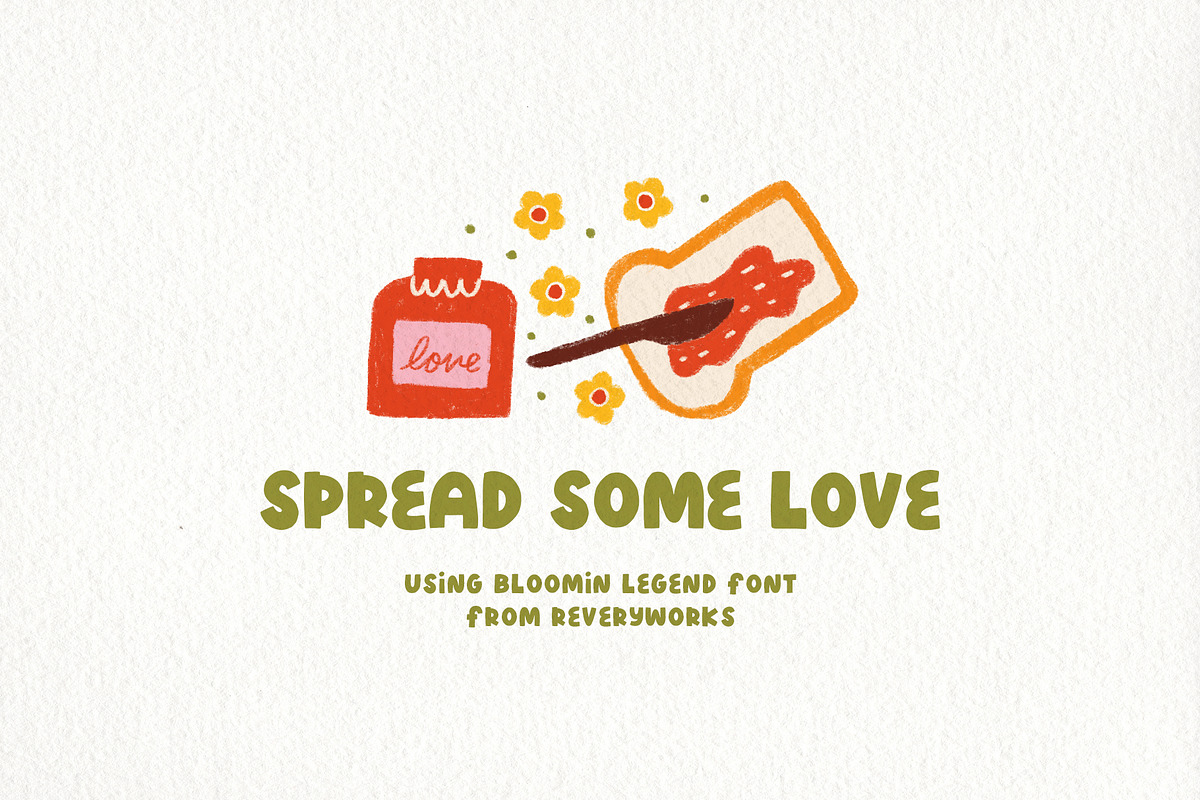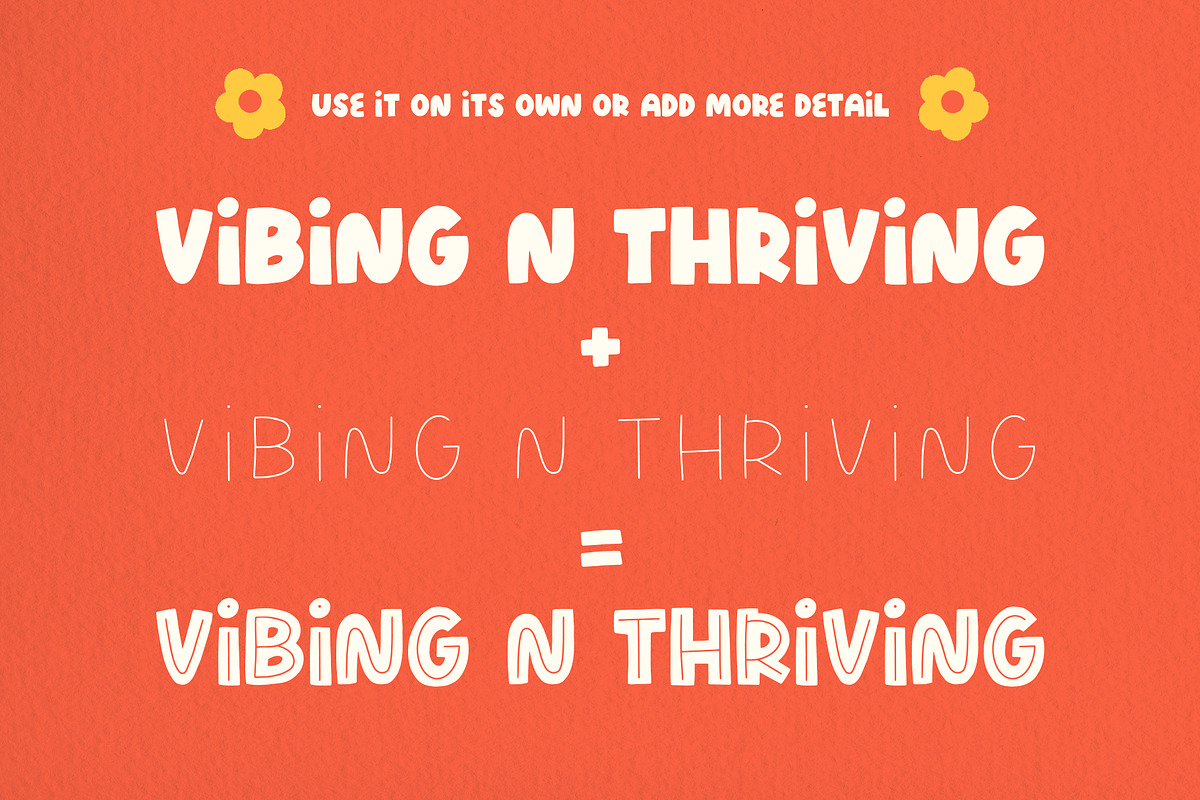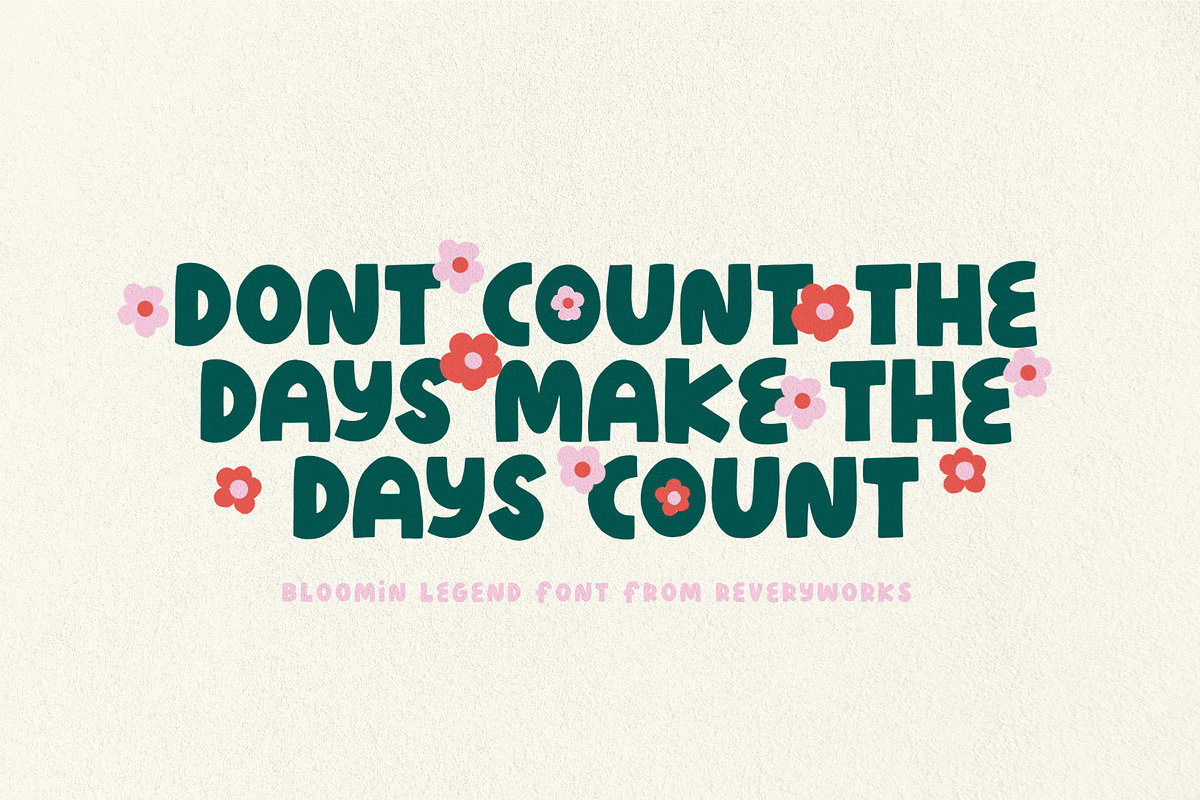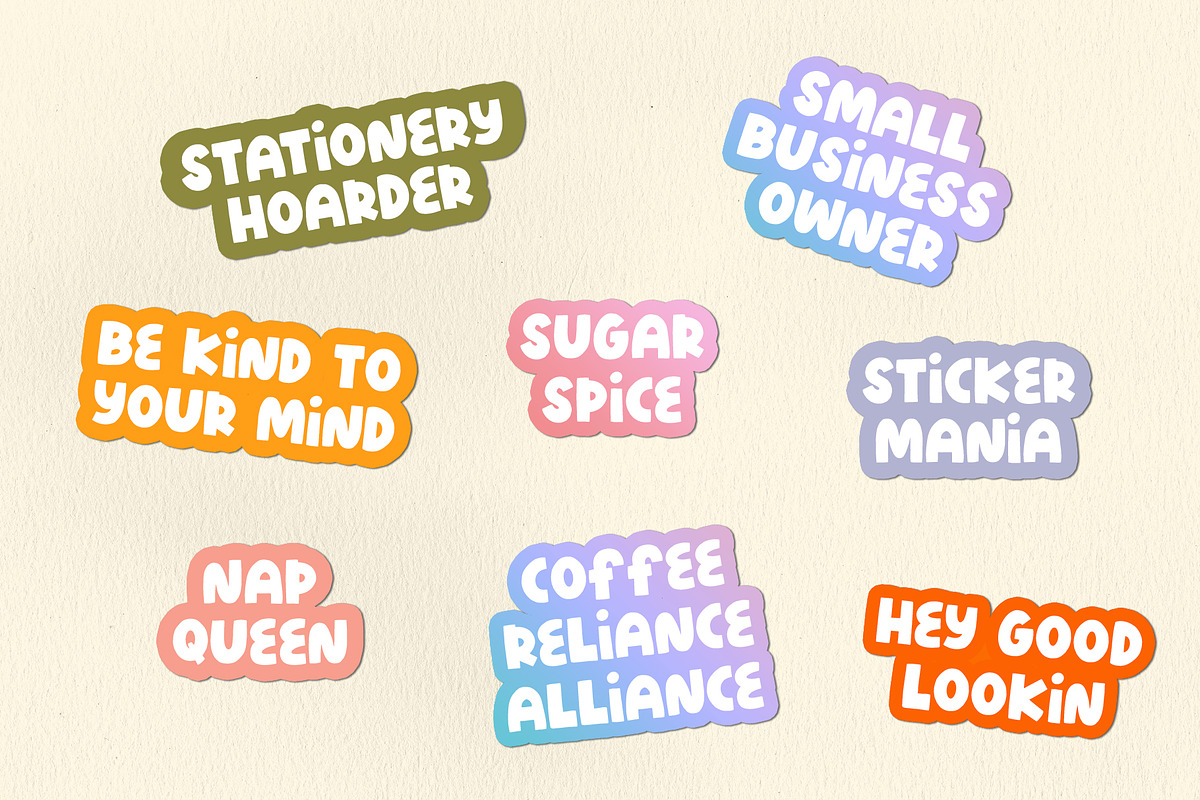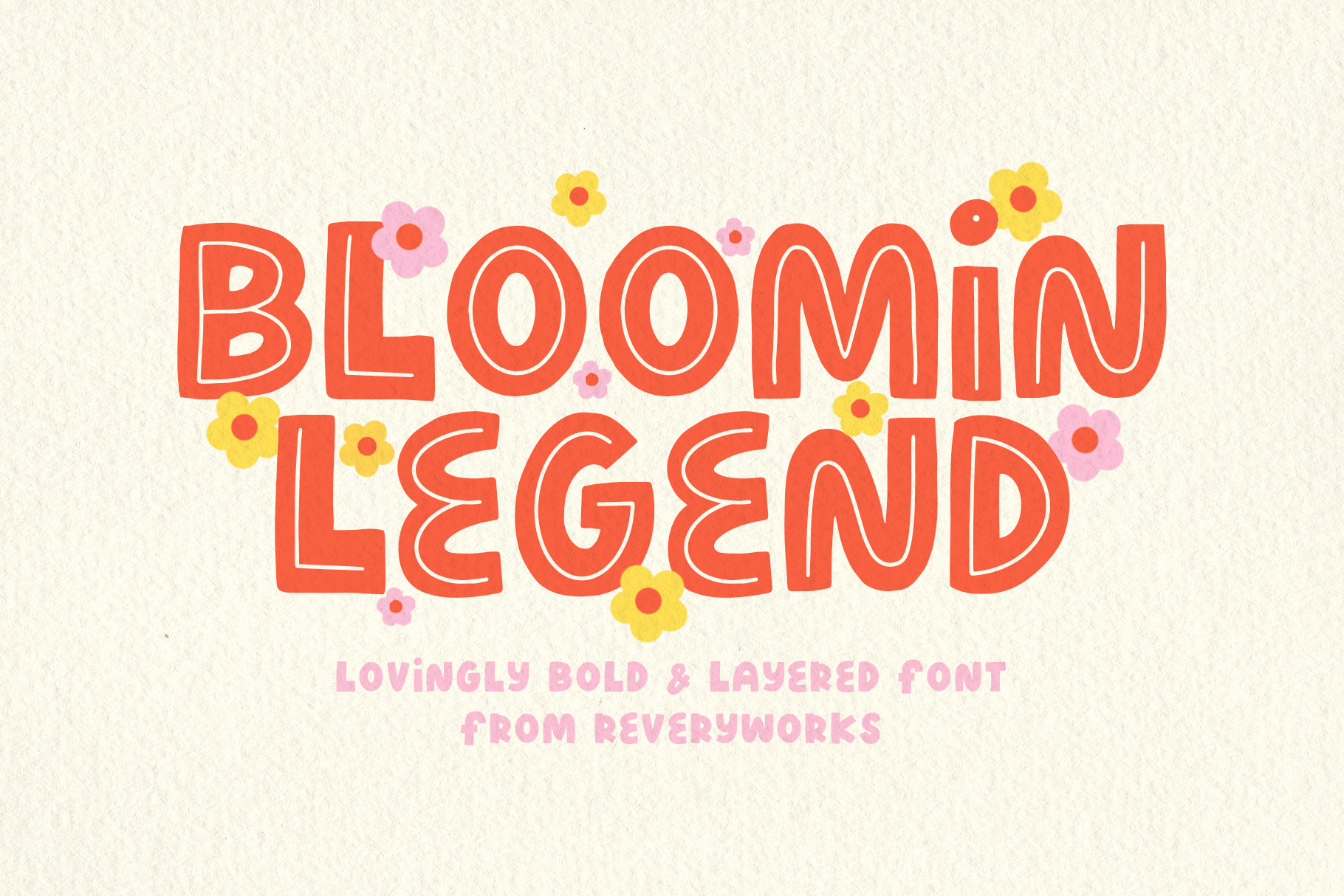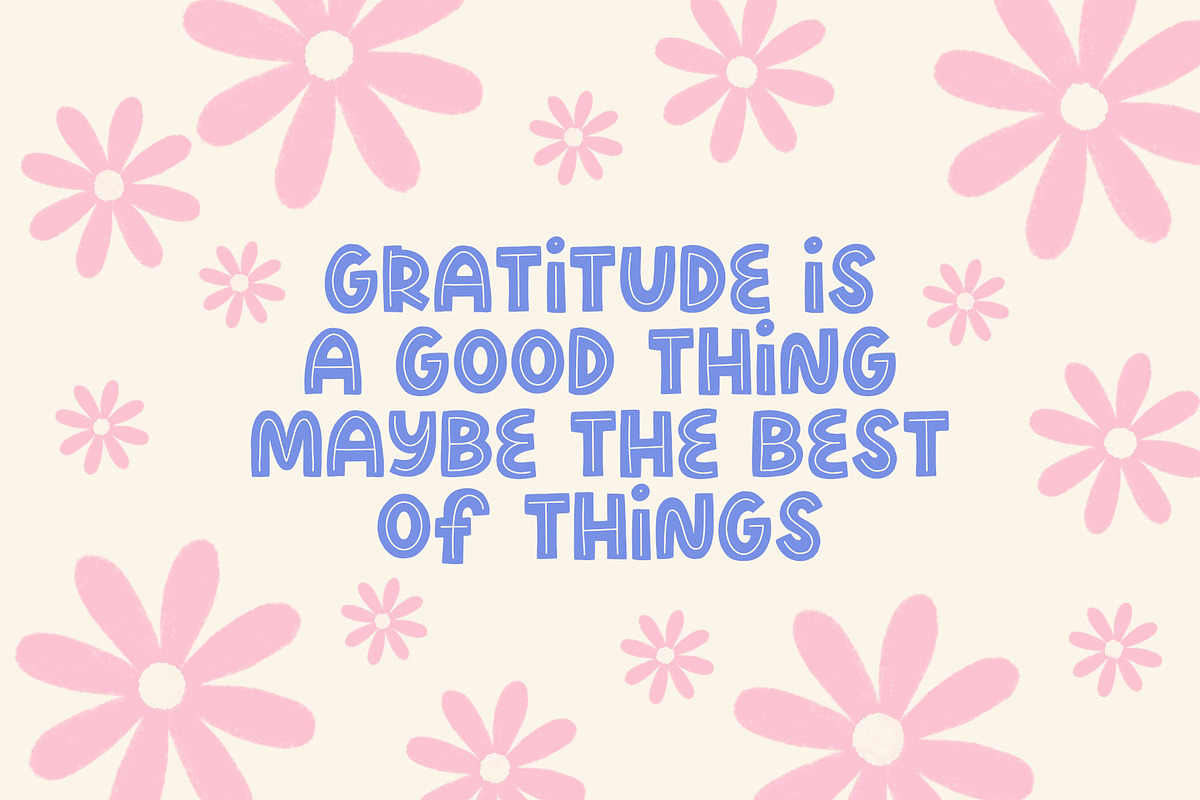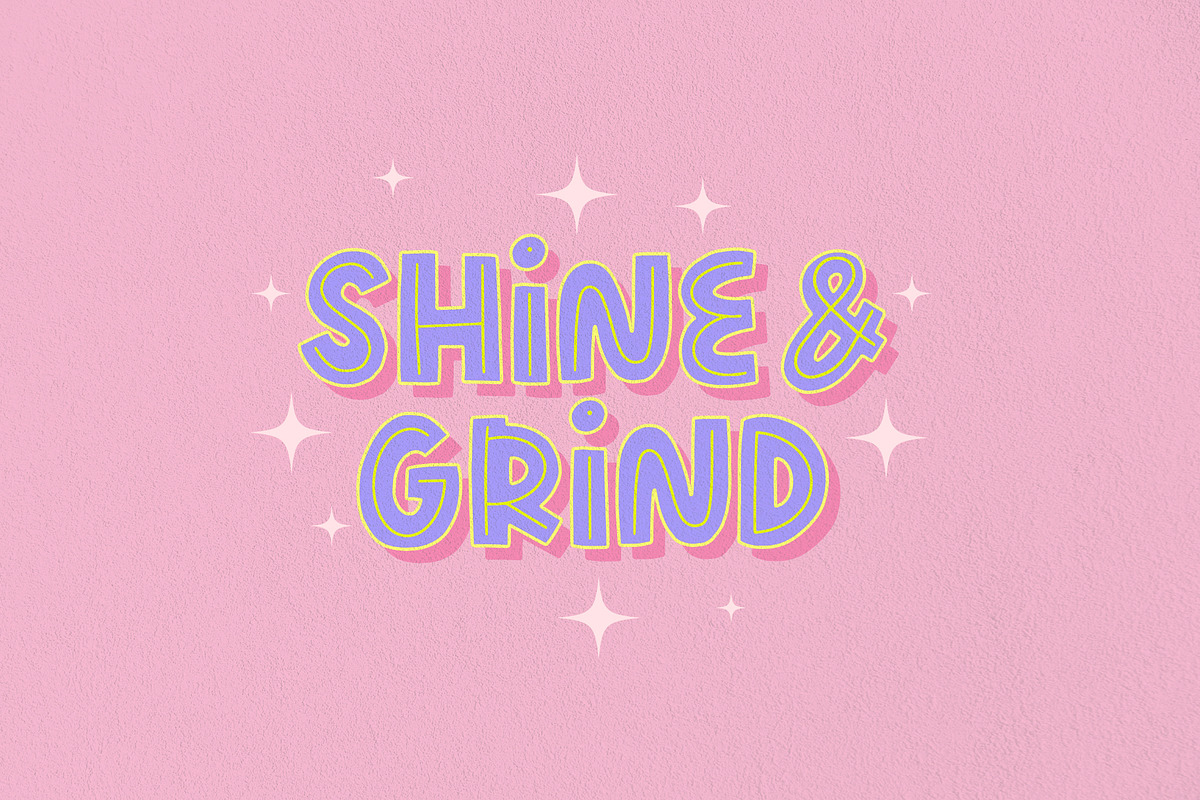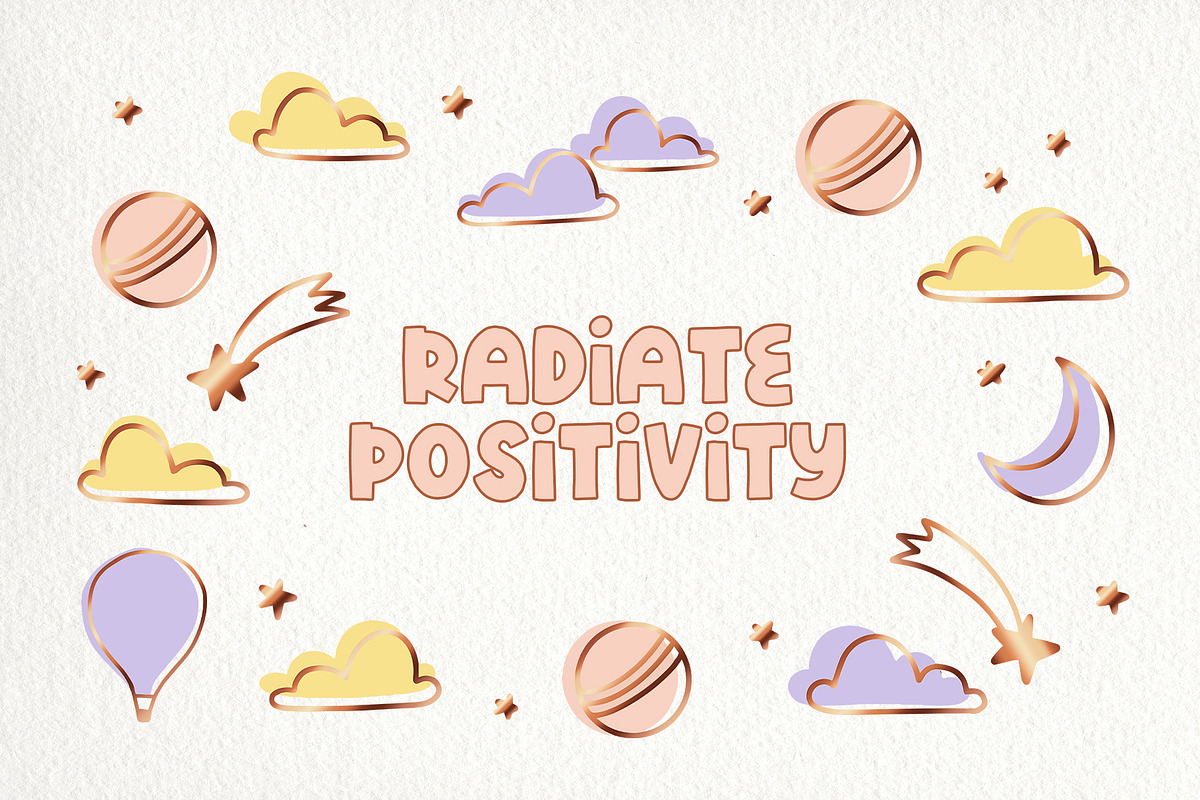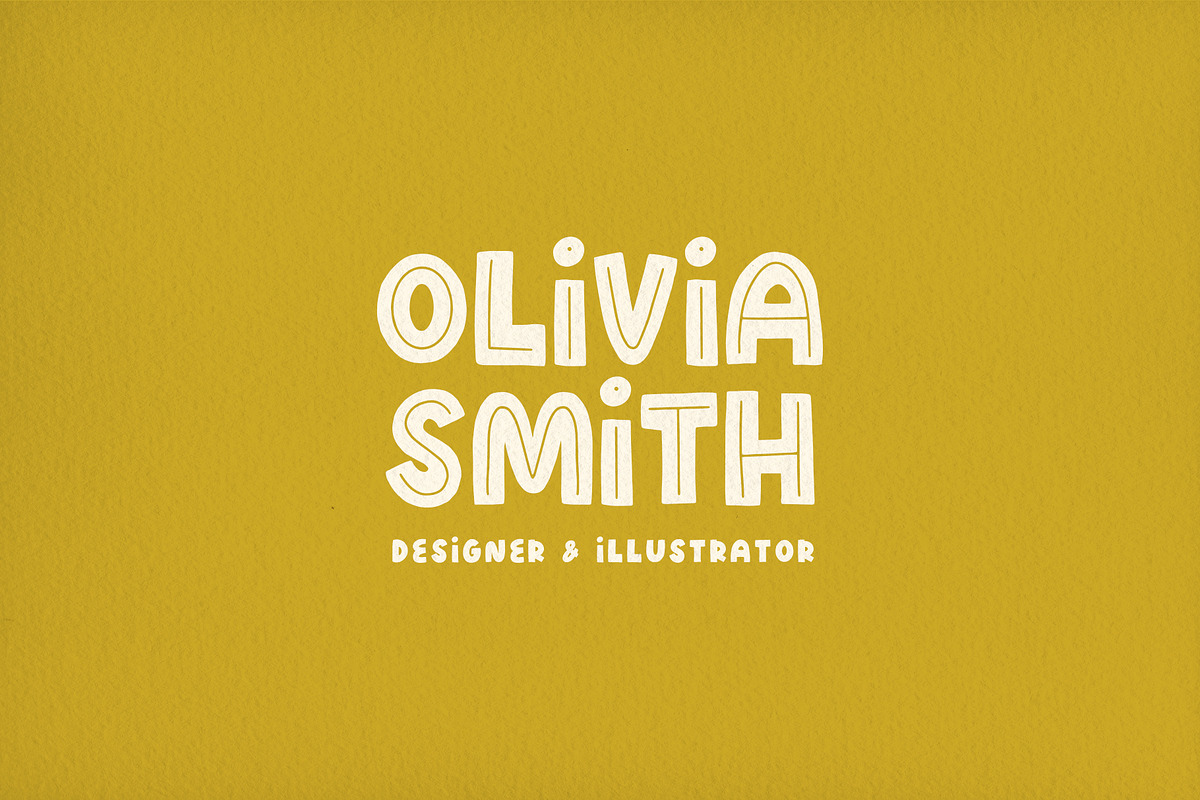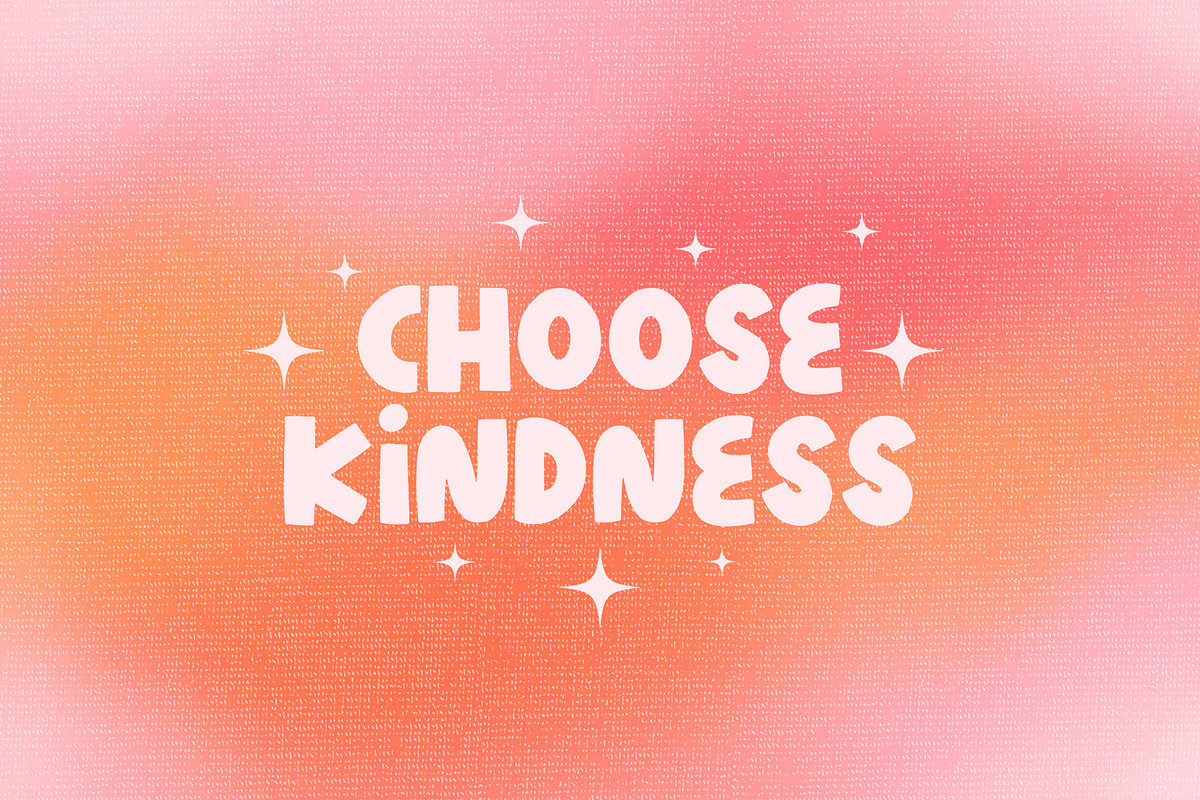
Blooming Legend Layered Font
Say Hello to Blooming Legend! A fun and bold layered font is here to get your inspired!
I imagine this will look great for greeting cards, stickers, instagram posts, quotes, playful branding. Use the font on its own or layer the hand drawn inline for added detail. I hope you get inspired by the previews and they serve little daily reminders :)
Play around by layering the font for a 3D look, or try outlining the text. You can also experiment with different trendy color combinations!
This font includes Multi-lingual support. The following characters are included á â à ä å ã æ ç é ê è ë í î ì ï ı ñ ó ô ò ö õ ø œ š ß ú û ù ü ý ÿ ž À Ä Å Ã Æ Ç É Ê È Ë Í Î Ì Ï Ñ Ó Ô Ò Ö Õ Ø Œ Š Û Ù Ü Ý Ÿ